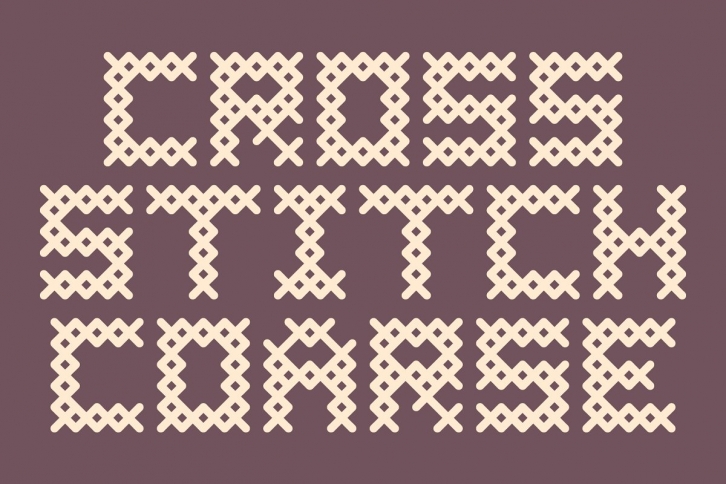
Cross Stitch Coarse is based on upper case characters 5 stitches tall and contains the upper case characters A-Z, numbers 0-9, ampersand, exclamation and question marks, comma, and period. Also, under the character set are all possible combinations of stitches 5 high from 1 through 5, which allows for the creation of custom glyphs. If the font is set at solid leading, lines following will align and mesh with stitches above. When setting lines of copy, extra leading is required to separate individual lines.